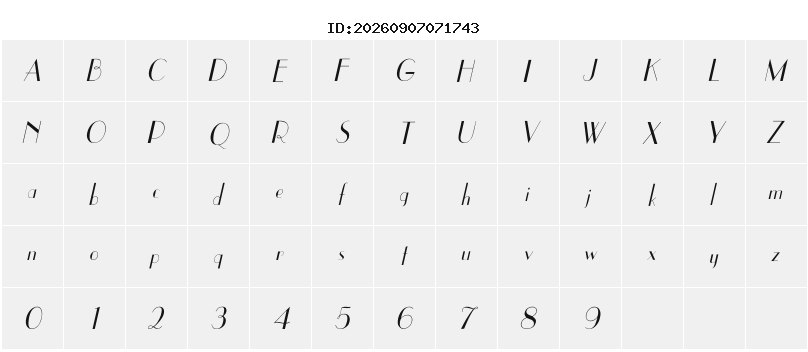
UppEa Th Italic Preview
• Font Name: UppEa Th Italic
• Full Font Name: UppEa Th Italic
• PostScript Name: UppEaTh-Italic
About UppEa Th Italic.ttf
UppEa Th Italic.ttf is a modern, elegant sans-serif font designed for ultimate readability and visual harmony. Perfect for branding, headlines, web design, and print materials.